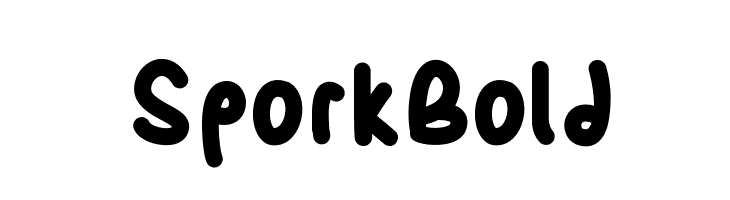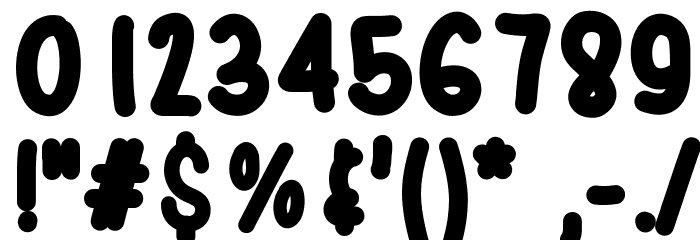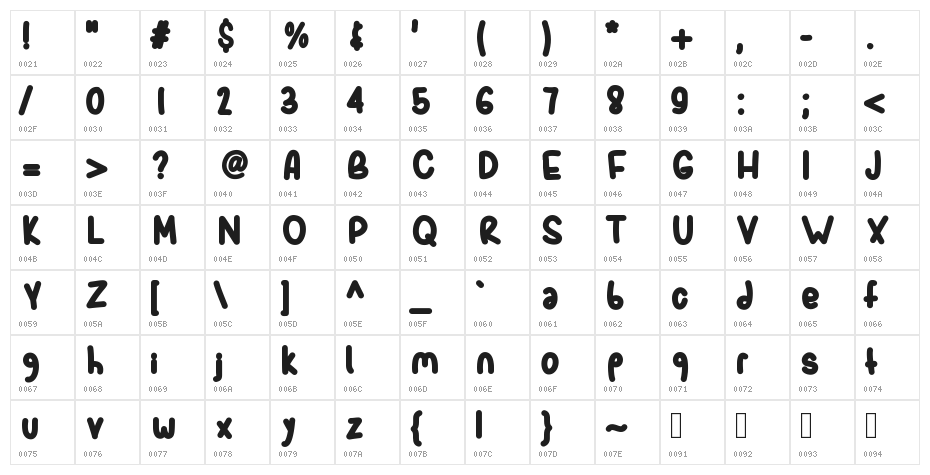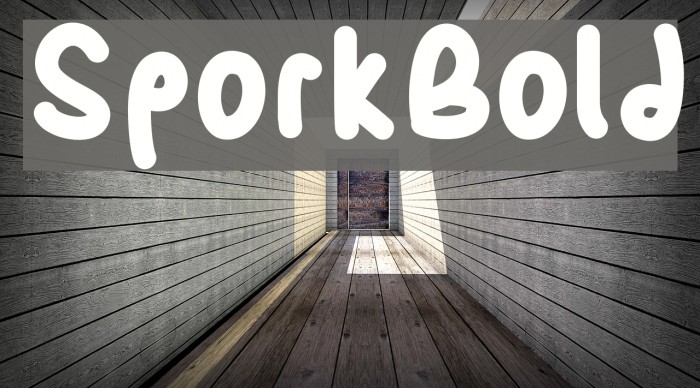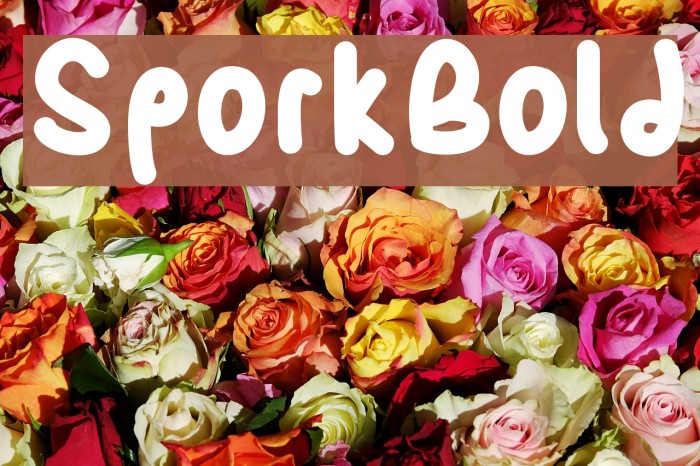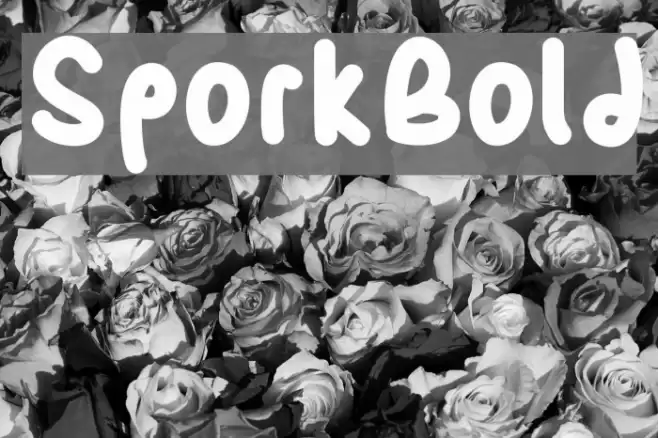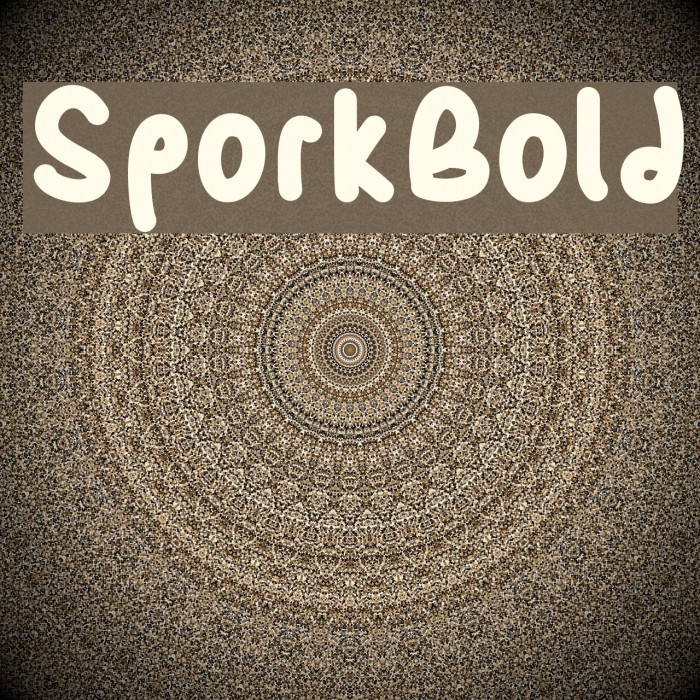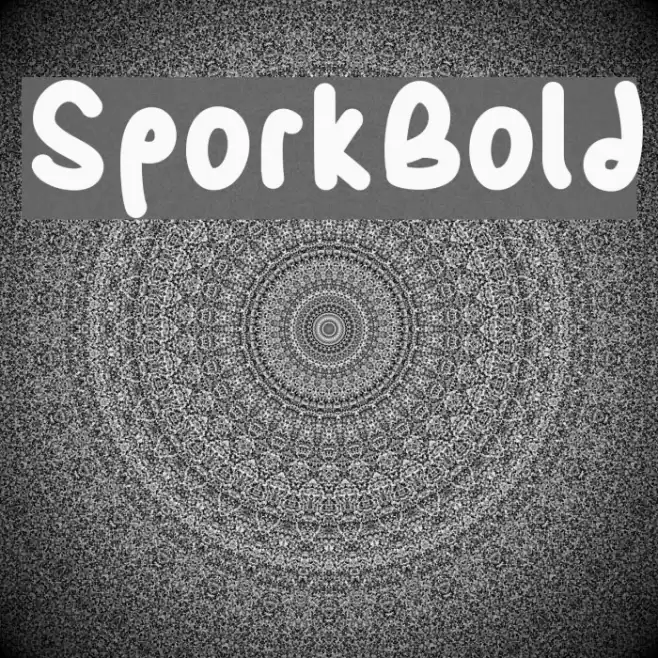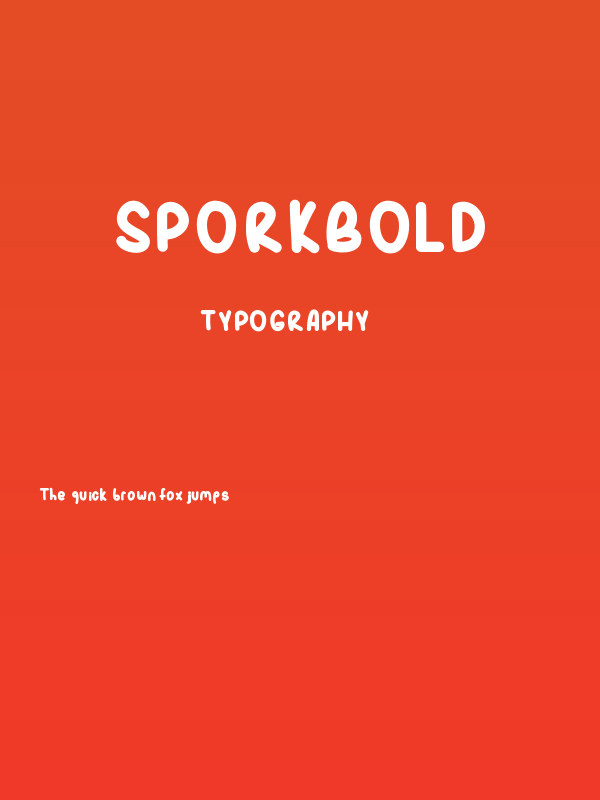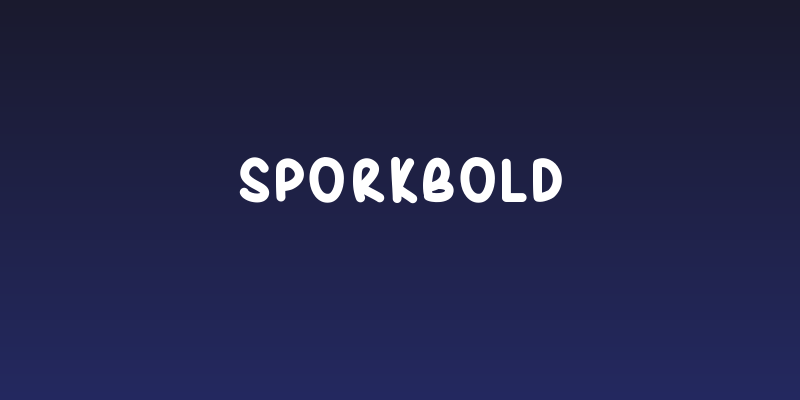
SporkBold Font
SporkBold Description
This playful and bold font features rounded, thick strokes that give it a friendly and approachable appearance. The characters are slightly irregular, adding a whimsical touch to the overall design. The uppercase and lowercase letters maintain a consistent style, with a focus on curves and smooth lines. The numerals and special characters are equally bold and rounded, ensuring uniformity across all elements. This font exudes a sense of fun and creativity, making it ideal for projects that require a lively and informal tone.
| Proposed Projects | Ideal for children's books, playful branding, casual invitations, and creative posters. |